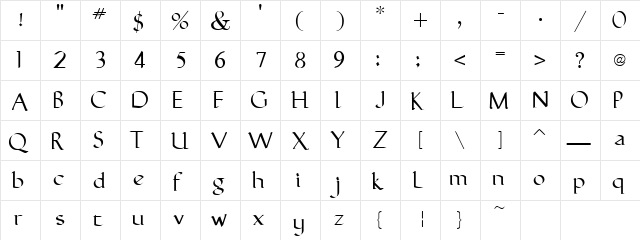
Base:JewishHolidays Normal
Design Context for Base:JewishHolidays Typeface
Base:JewishHolidays takes a measured approach to typography — its balanced proportions and neutral character make it a reliable workhorse for both digital and print work.